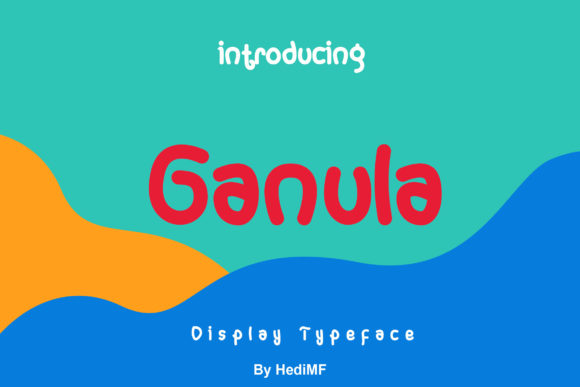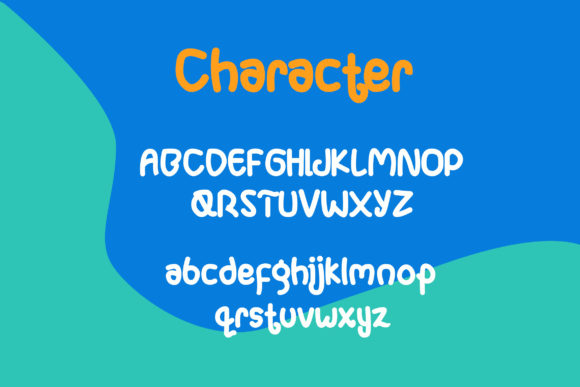
Ganula Handwritten Font
The Ganula is a fun display font. It has a little irregularity which gives it an interesting look.
This display font is suitable for magazines, logos, signatures, posters, advertising, brochures, and much more!